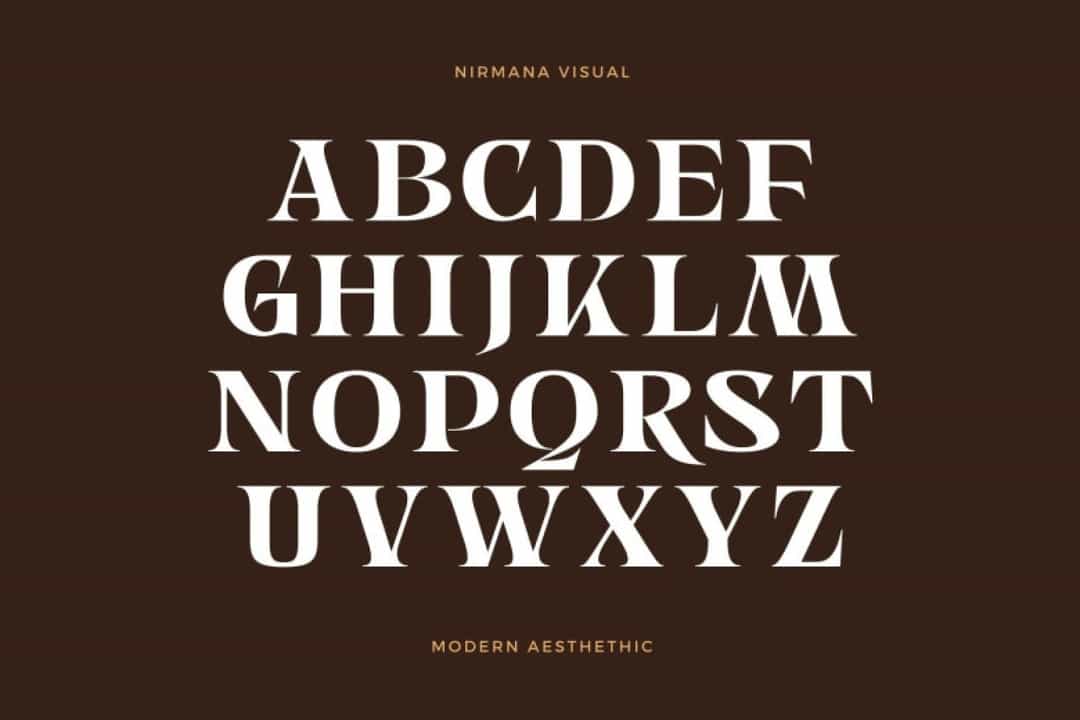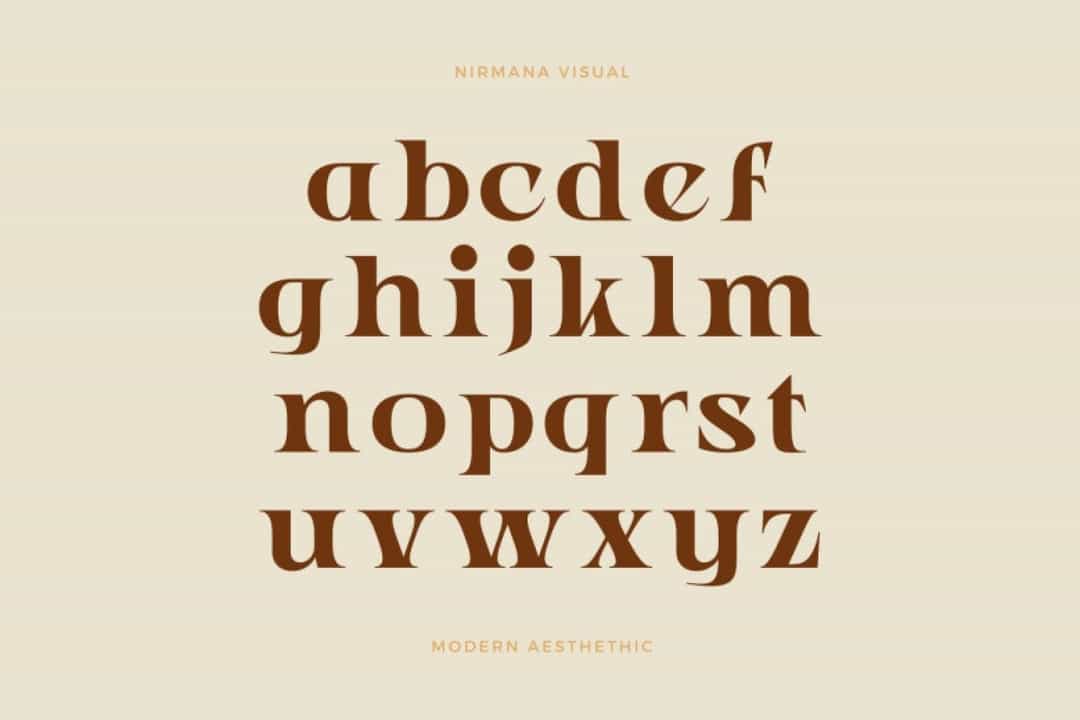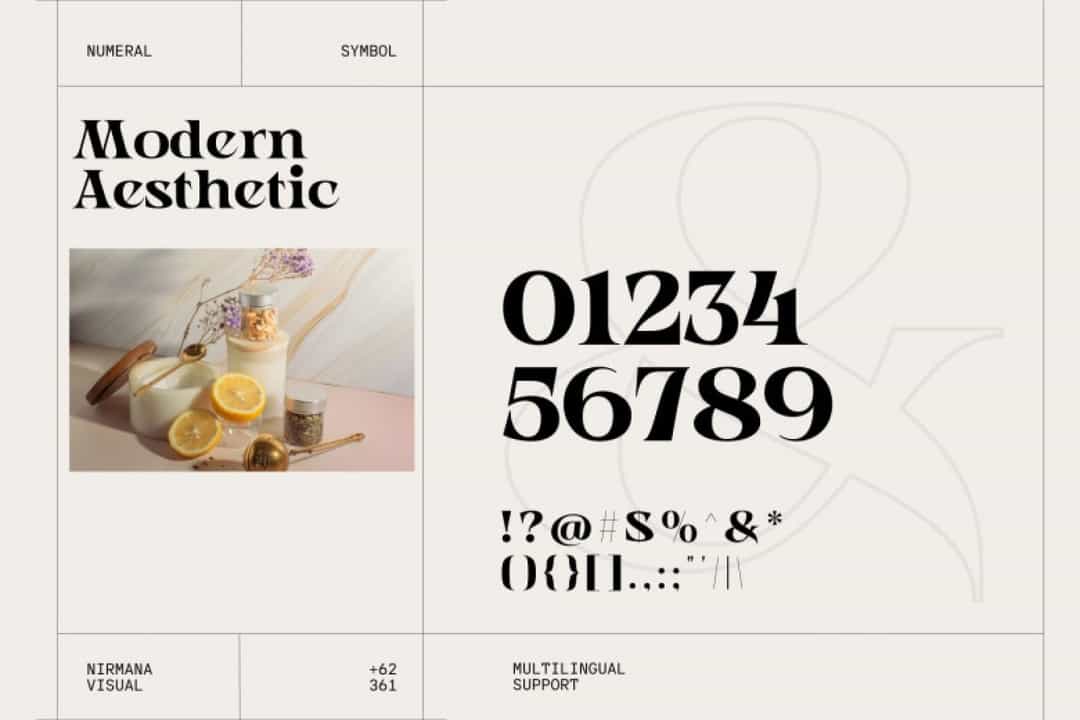
Discover Modern Aesthetic Font, part of the Serif Display collection—a versatile and unique font perfect for adding a personal touch to your projects. Download it for free and enjoy crafting designs with style, from invitations to social media posts. This font is available exclusively for personal use, giving you the freedom to create without limits. Unlock your creativity with Modern Aesthetic Font today!
Modern Aesthetic Font Inspired by Renaissance Design Era. Vintage Retro offers beautiful typographic harmony for various design-related projects such as branding & logo design as well as social media posts, advertisements and product designs.